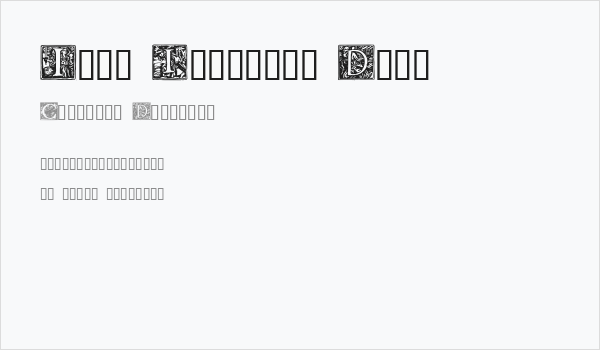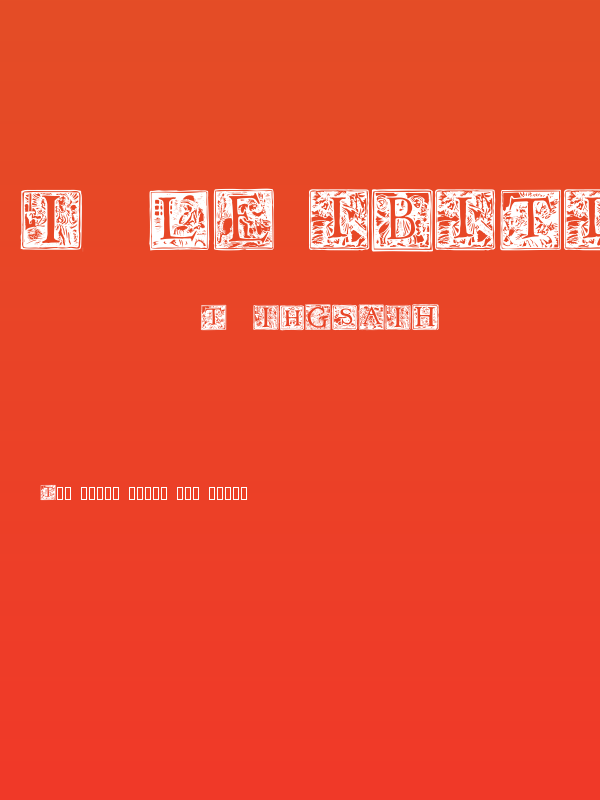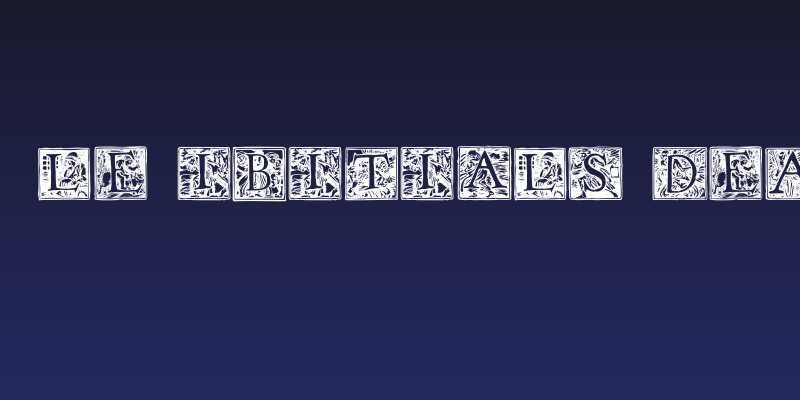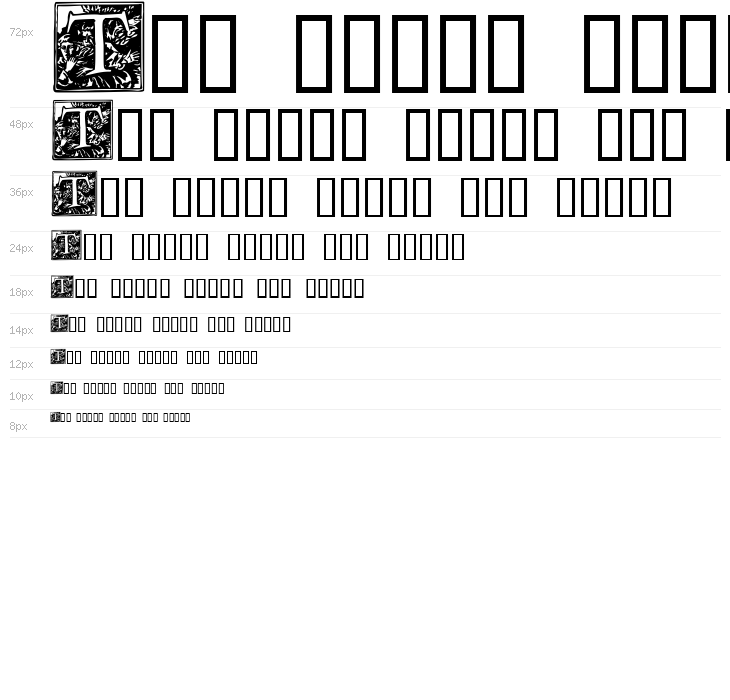
Pyle Initials Demo Font
Pyle Initials Demo Description
This font features ornate, decorative initials with intricate designs within each letter. The uppercase letters are enclosed in square frames, each filled with elaborate illustrations that give a vintage and artistic feel. The style is reminiscent of illuminated manuscripts, with each character being a work of art in itself. The detailed embellishments within the letters make them ideal for decorative purposes, where a touch of elegance and historical charm is desired. The font is not suitable for body text due to its complexity but excels in creating a striking visual impact.
| Use Case | Logos, Headlines, Decorative elements |
| Proposed Projects | Perfect for wedding invitations, book covers, certificates, and any project requiring a historical or artistic touch. |